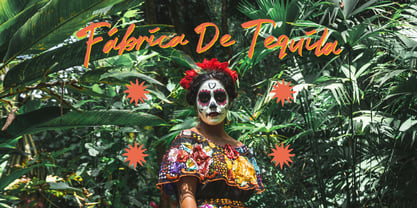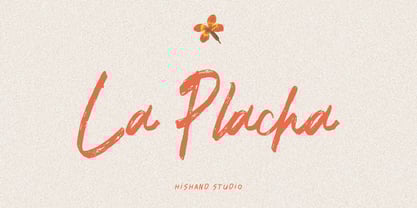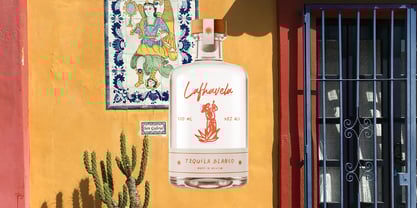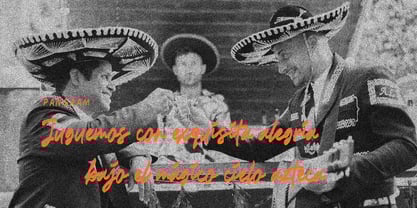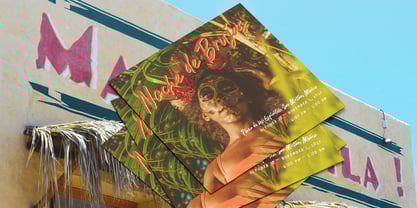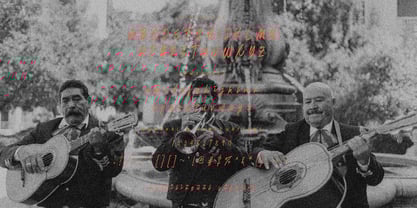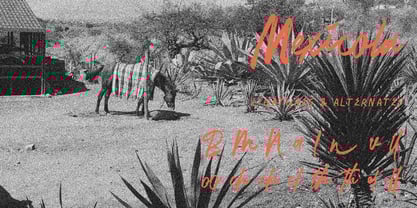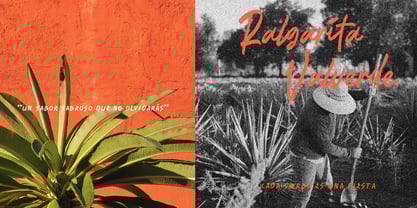
La Placha
by Hishand Studio
La Placha is a stylish and expressive script brush font with a natural, hand-painted texture. Its flowing strokes and organic feel bring an artistic charm, making it perfect for branding, invitations, posters, and more. The bold yet elegant letterforms create a balance between creativity and sophistication, adding warmth and personality to any design. Whether you're working on a tropical-themed project or a modern calligraphy piece, La Placha effortlessly enhances your typography with its handcrafted appeal. complete with
• uppercase
• lowercase
• ligatures
• alternates
• multilingual support